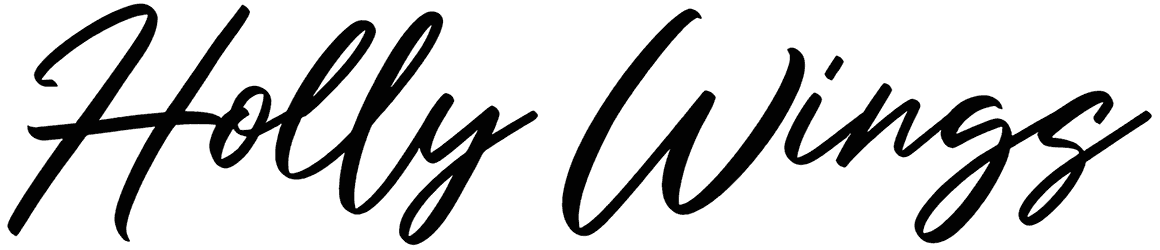
Holly Wings Font
Do you want to add an authentic handcrafted touch to your graphic content, such as magazines, website news, posters, logos, and prints on clothes? We offer you to use a script font like Holly Wings to meet your needs and go further by presenting a sense of softness, precision, and dynamism.
Due to the cursive and wavy design of this handwritten font, reading its characters might be a little challenging, also it doesn’t support numbers.